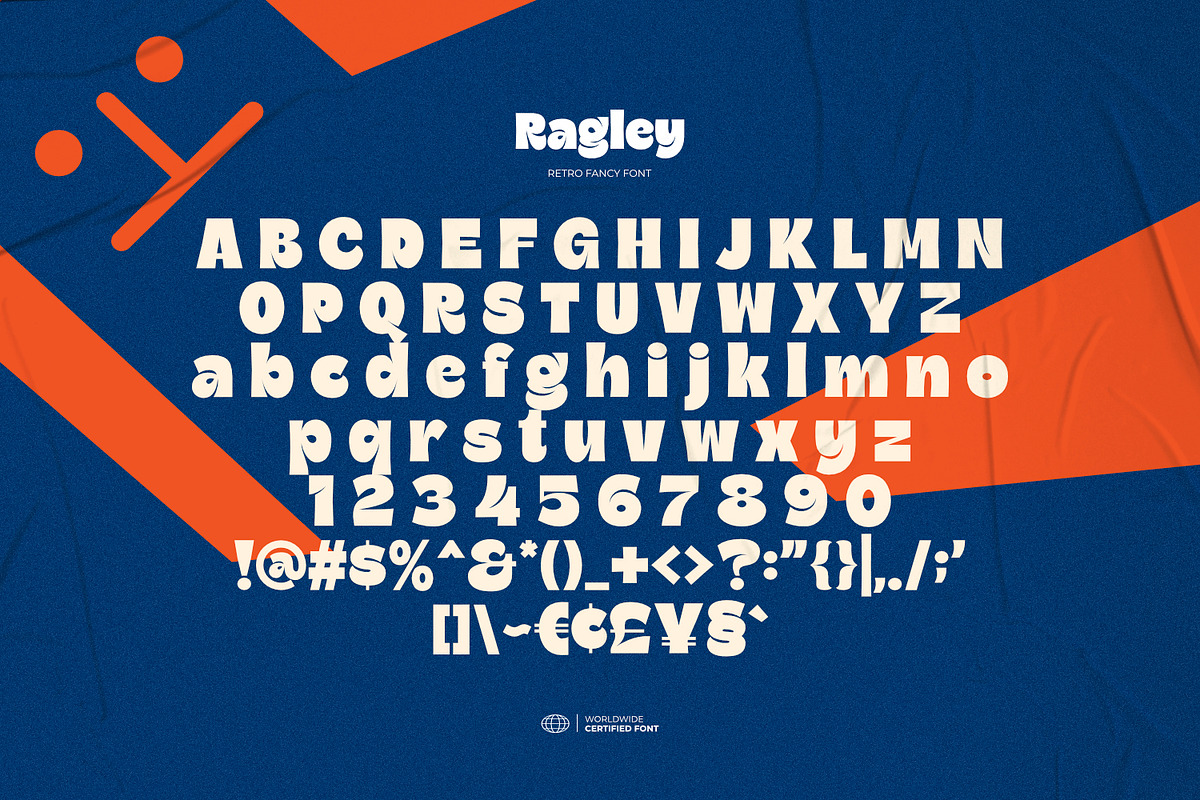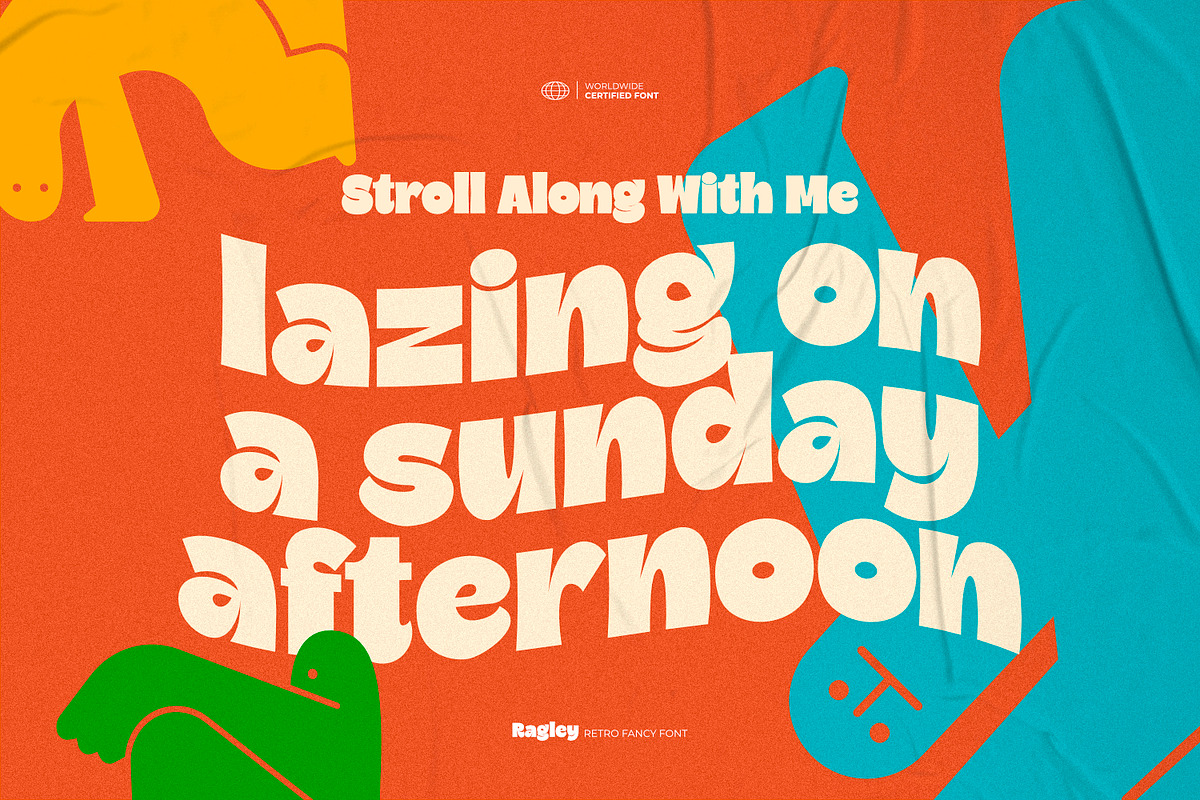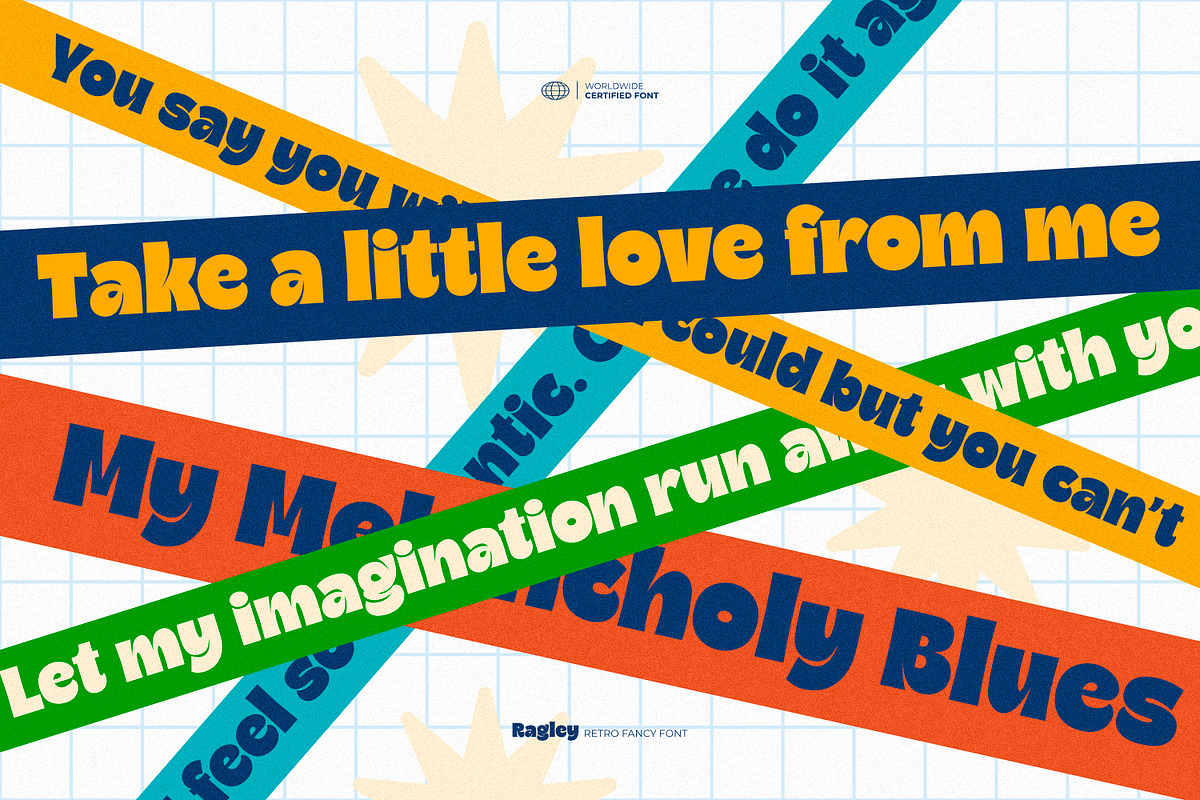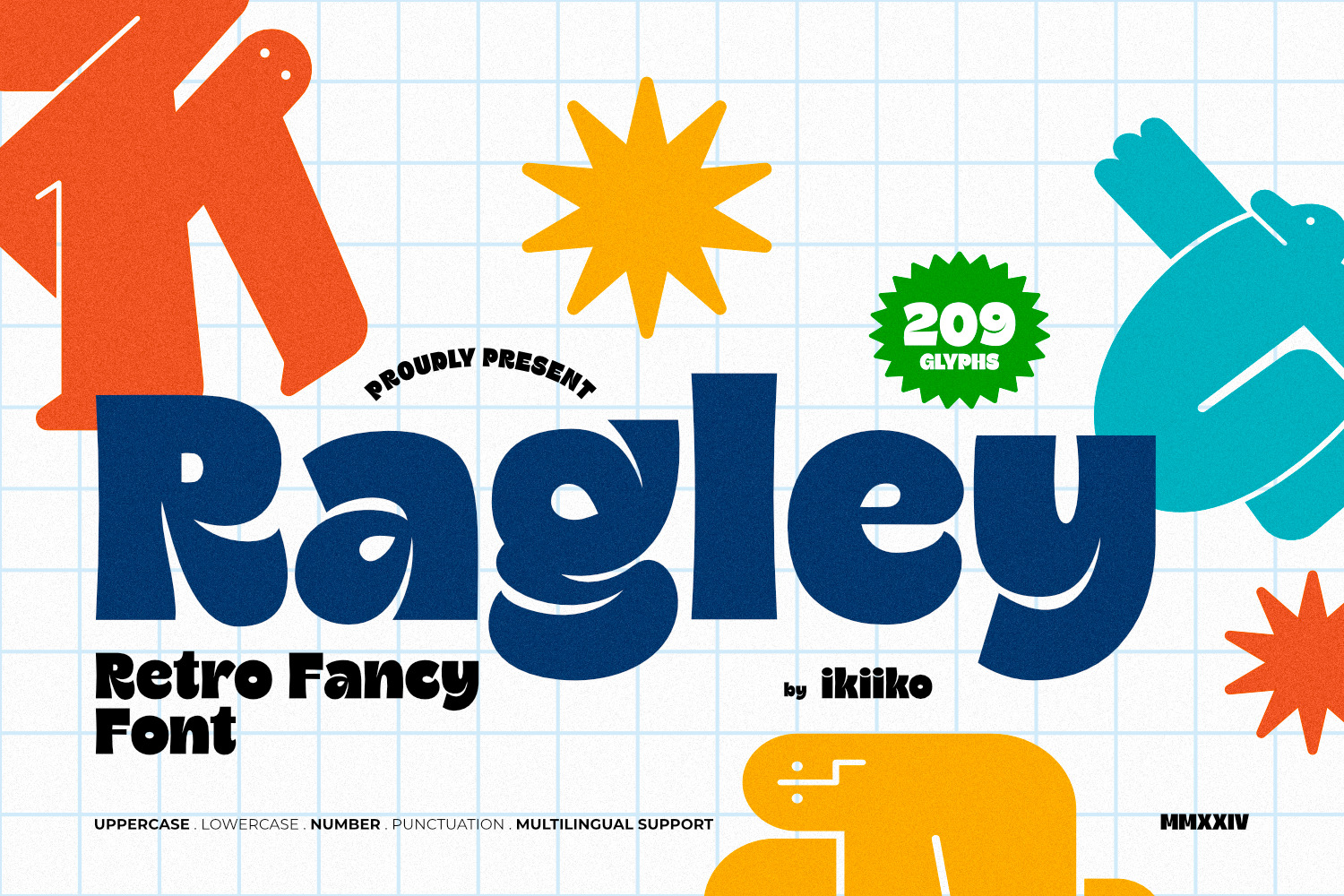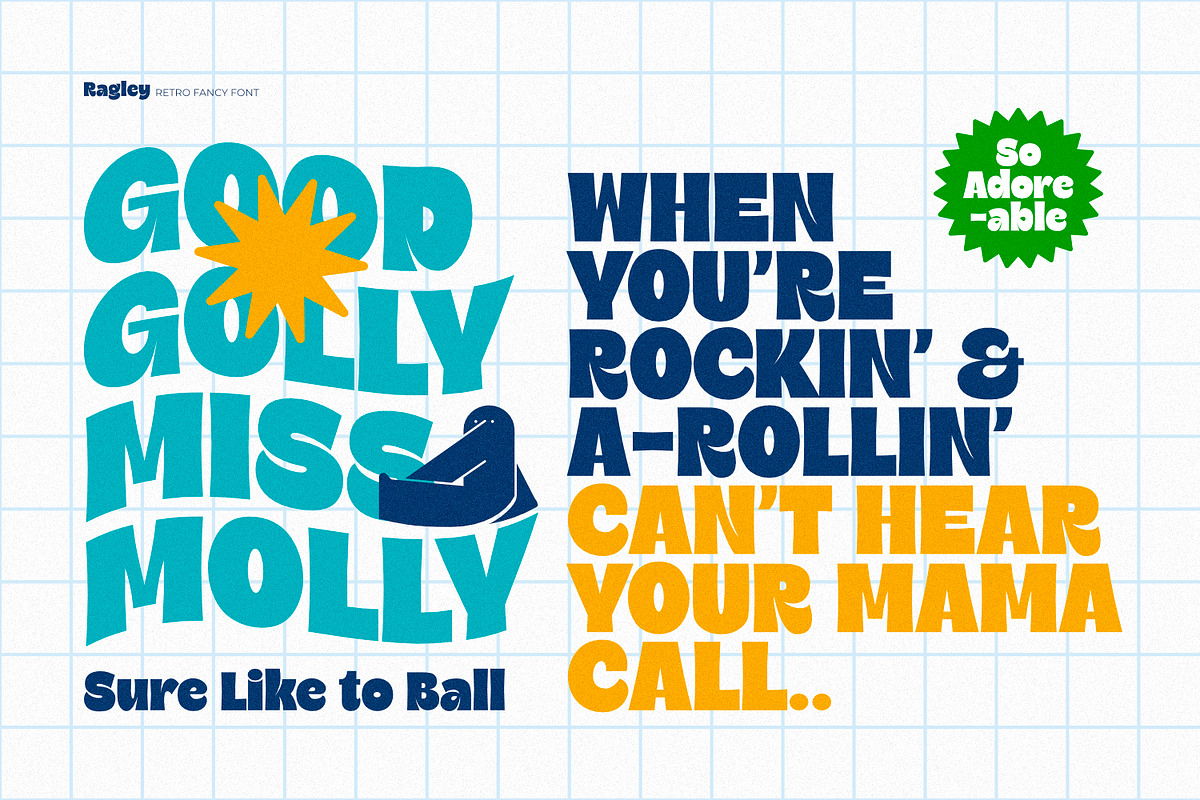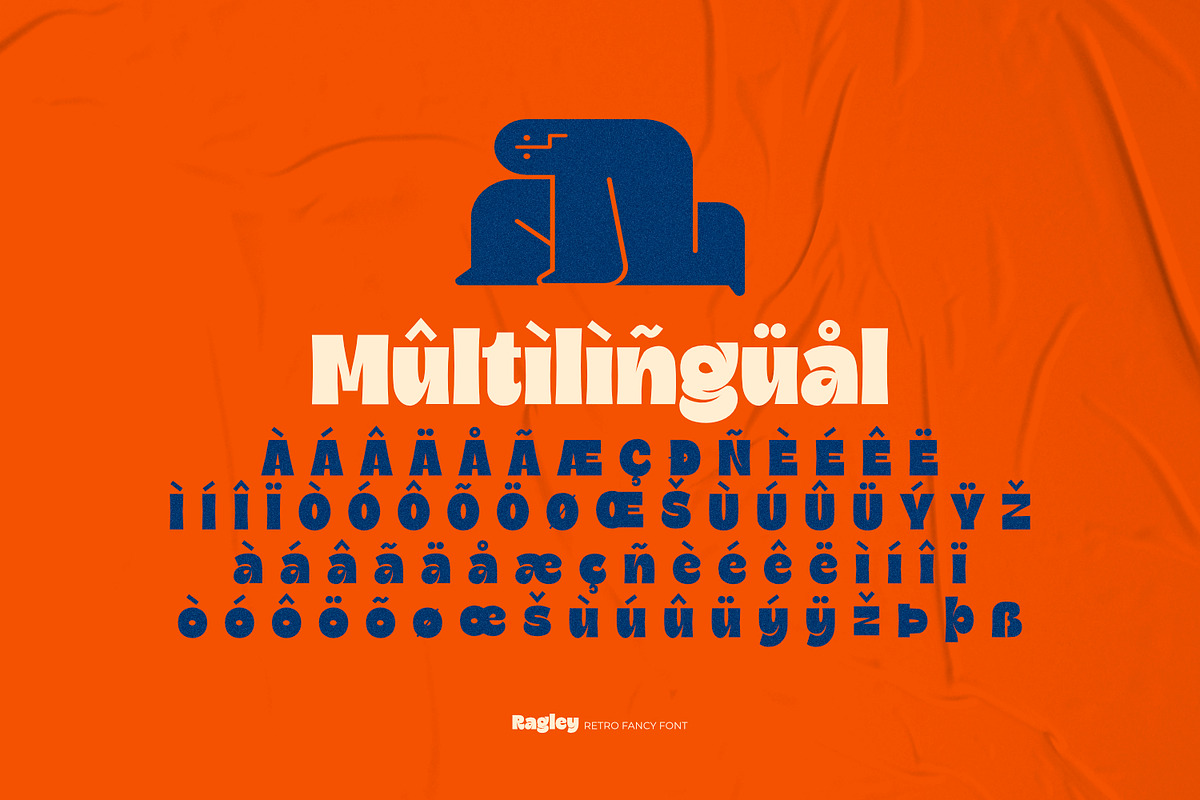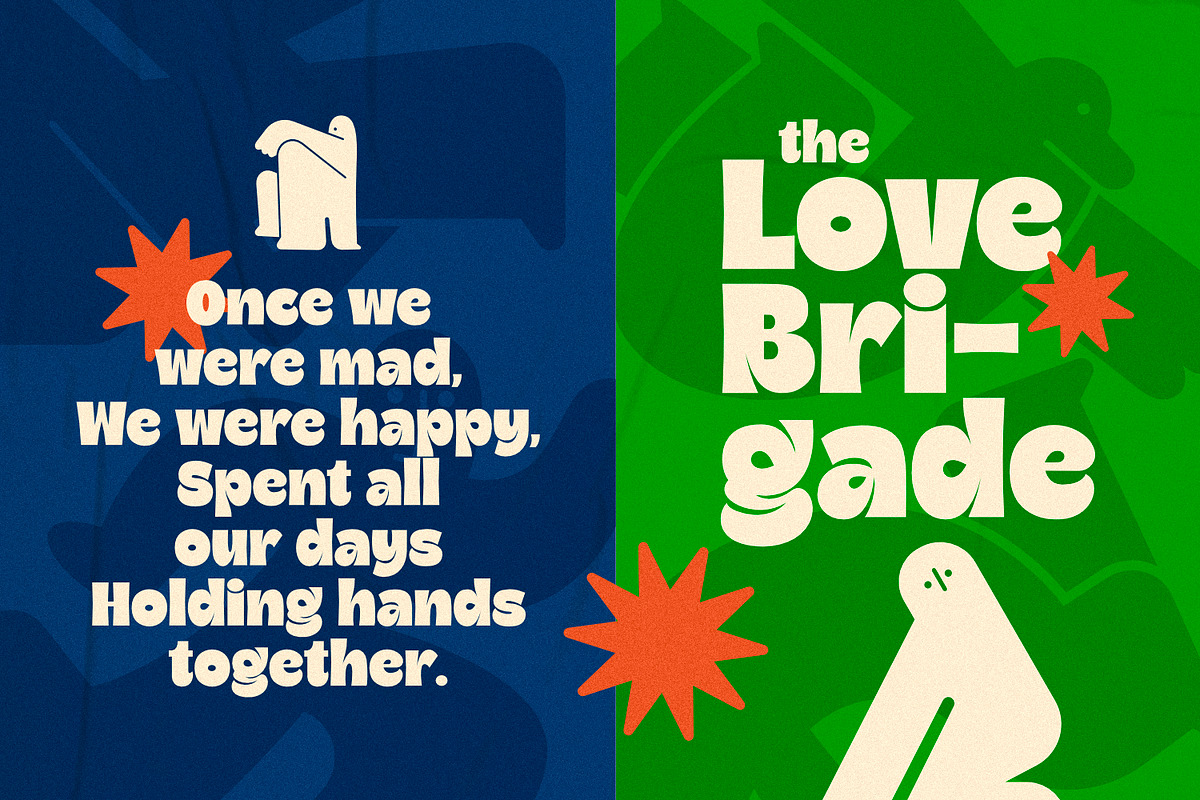
Ragley - Retro Fancy Font
Proudly present Ragley - Retro Fancy Font, created by ikiiko.
Radiating classic elegance and ageless grace, Ragley daringly combines the spirit of the past with modern flair. Ragley's retro aesthetic skillfully evokes the essence of past times while retaining a contemporary edge.
With its fancy curves and vintage flair, Ragley exudes charm and elegance, making it perfect for adding a touch of retro chic to any design project. Whether you're creating posters, branding materials, or editorial layouts, Ragley brings a unique character that harks back to a more glamorous time while remaining effortlessly stylish in the present day.
This font is very suitable for making a retro stiff, streetwear brand, poster, magazine layout, fashion design, quotes, or simply as a stylish text overlay to any background image.